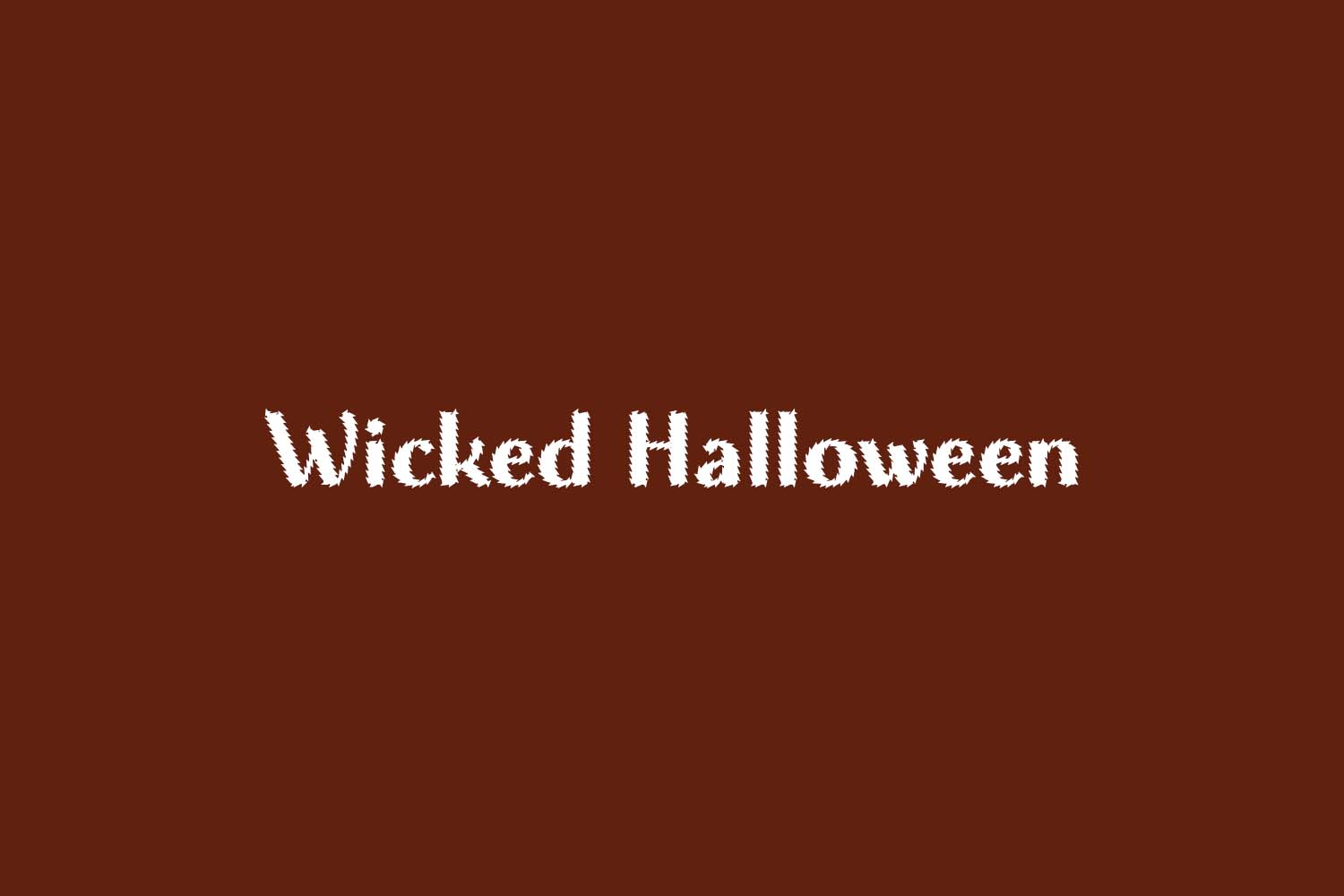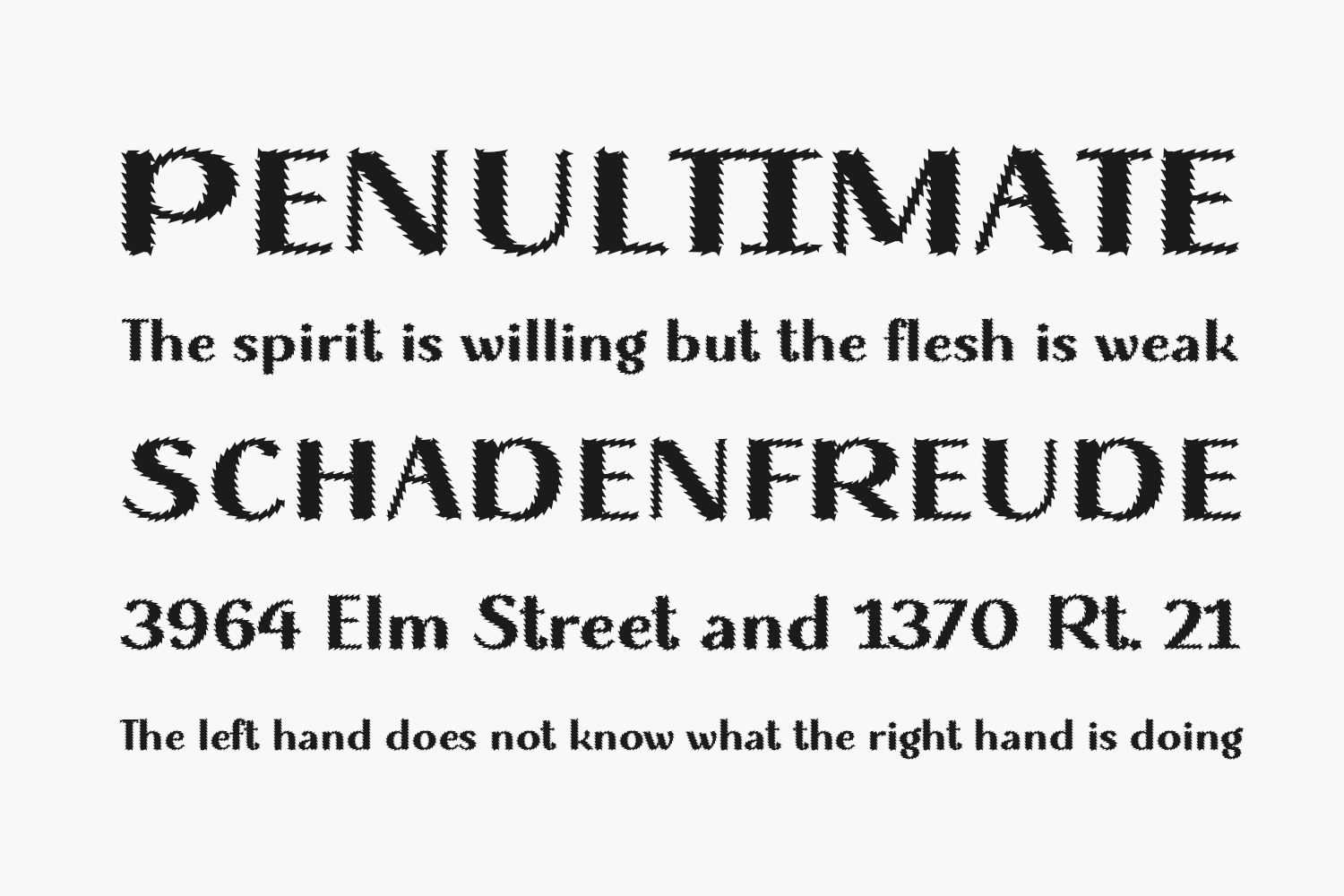
Wicked Halloween Free Font is a bold and spooky decorative font. Add it to your Halloween crafts, horror movie posters, t-shirts, and anything else that requires a spectacular look. Wicked Halloween Free Font was designed by Misti’s Fonts and is free for personal use only. Please purchase the full version for commercial use.